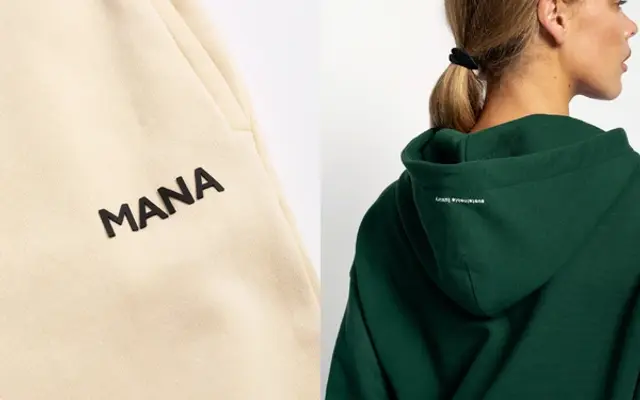
Pangea Collection
A wide-ranging humanist sans family with optical size variants, multiple widths and extensive multi-script coverage spanning Latin, Cyrillic, Arabic, Hebrew, Greek and Thai.
The Pangea Collection is split into two optical branches: Pangea for display and heading work, and Pangea Text for sustained reading at smaller sizes. Both branches run across five weights from Light to Bold with matching italics, and the family extends through SemiCondensed, Condensed and XCondensed widths. The breadth of script coverage, including Arabic, Hebrew, Thai and Vietnamese alongside Latin, Cyrillic and Greek, makes it suited to global publishing and identity work.
The Pangea Collection is a humanist sans-serif family, with optical size variants (text and display) and multiple width variants suggesting a design rooted in legibility and human warmth rather than geometric abstraction.